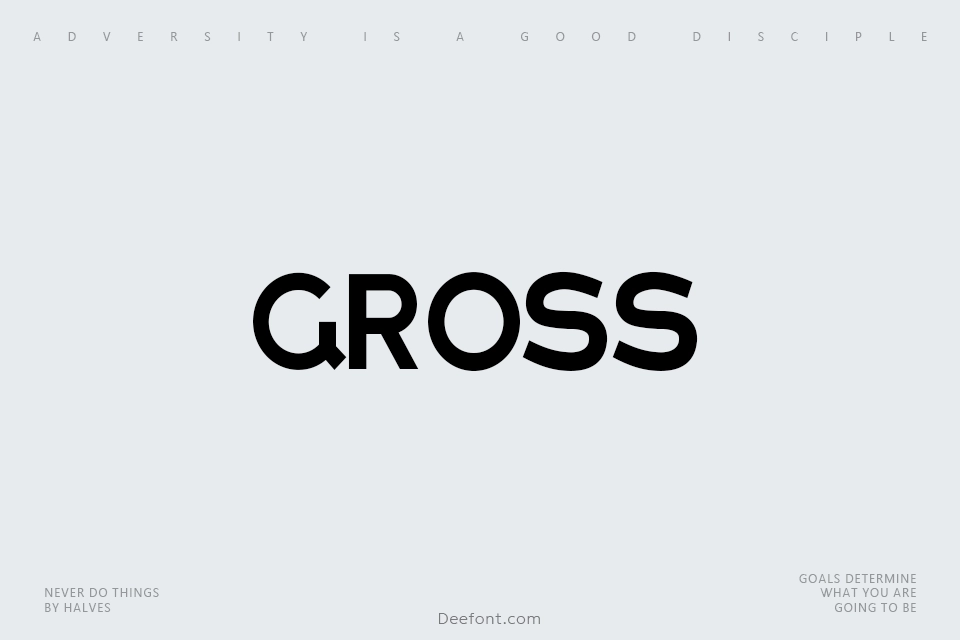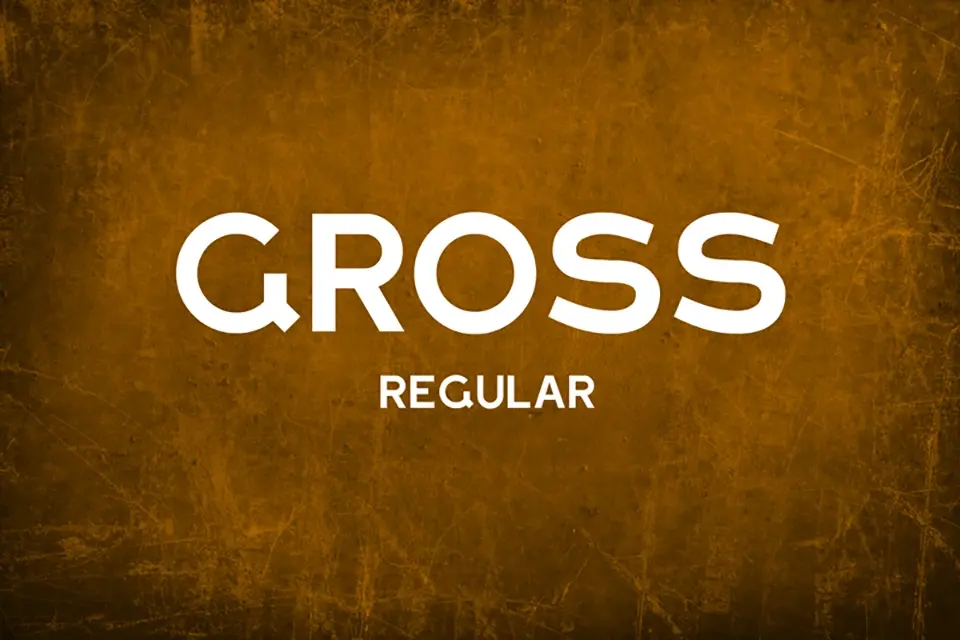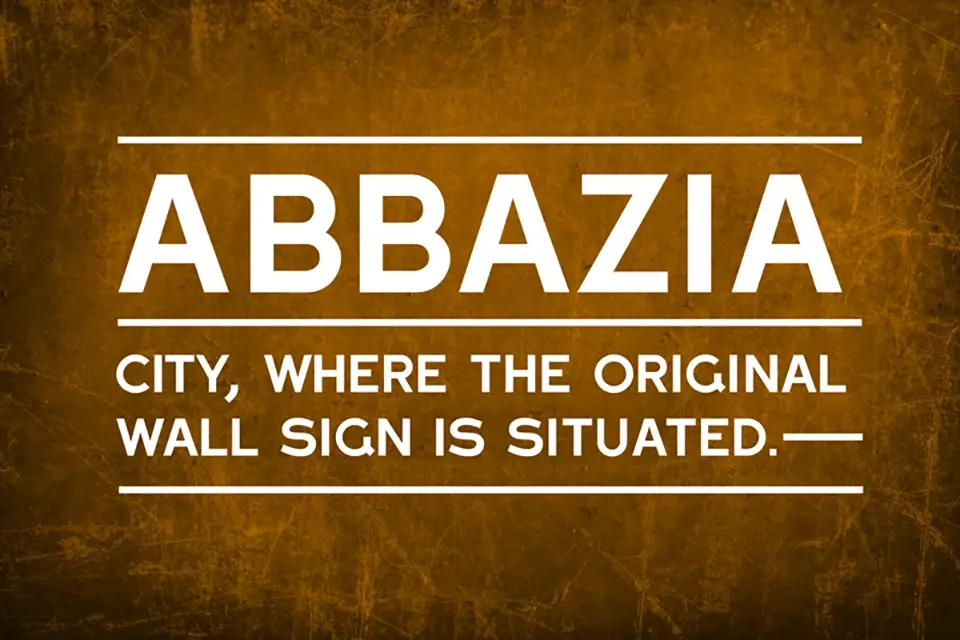
Gross Font
Gross is a bold and modern sans-serif typeface with a unique character. Originally sourced from a vintage sign in Opatija, Croatia, this geometric font features clean lines and chunky letters with slightly rounded edges that combine friendly strength with authoritative confidence. Perfect for eye-catching headlines, branding projects, signboards, and multimedia presentations, Gross delivers remarkable impact through its consistent weight and exceptional readability. The font’s balanced spacing and versatile design make it an excellent choice for projects requiring both personality and professional polish.